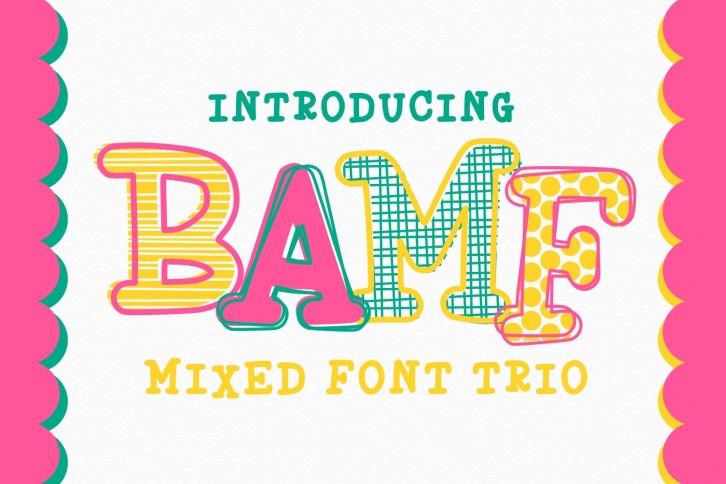
BAMF is a gorgeous font that was realeased on March 24, 2018. The font can be used in many style contexts and design environments. Perfect for invitations, magazines, websites, logos, and more! It was designed by Justina Tracy and the file size is 19.81 MB. Thanks for checking out this font!